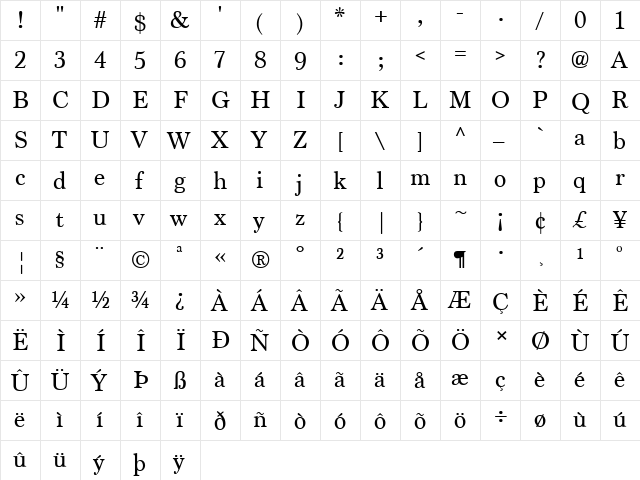
Marion Regular
Design Context for Marion Typeface
Marion takes a measured approach to typography — its balanced proportions and neutral character make it a reliable workhorse for both digital and print work.
Pro Tip: Pair Marion with a font of contrasting weight or personality to build a more expressive typographic hierarchy.